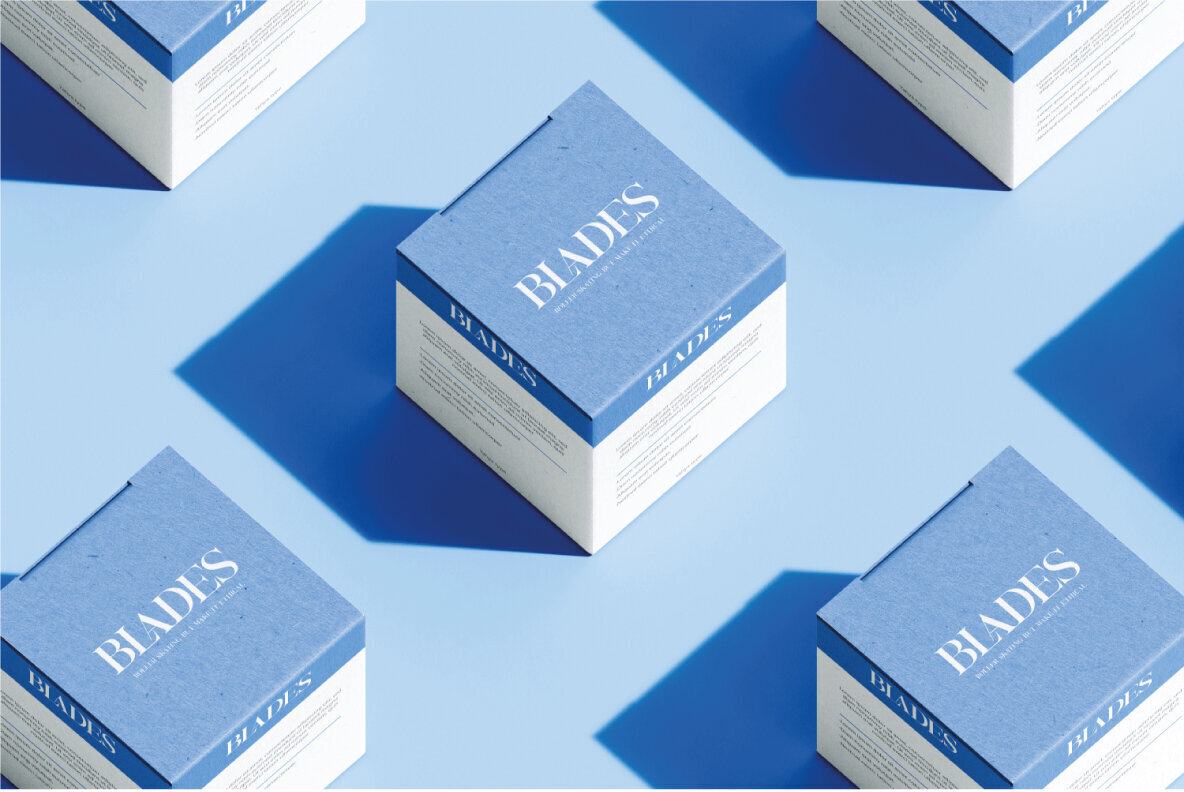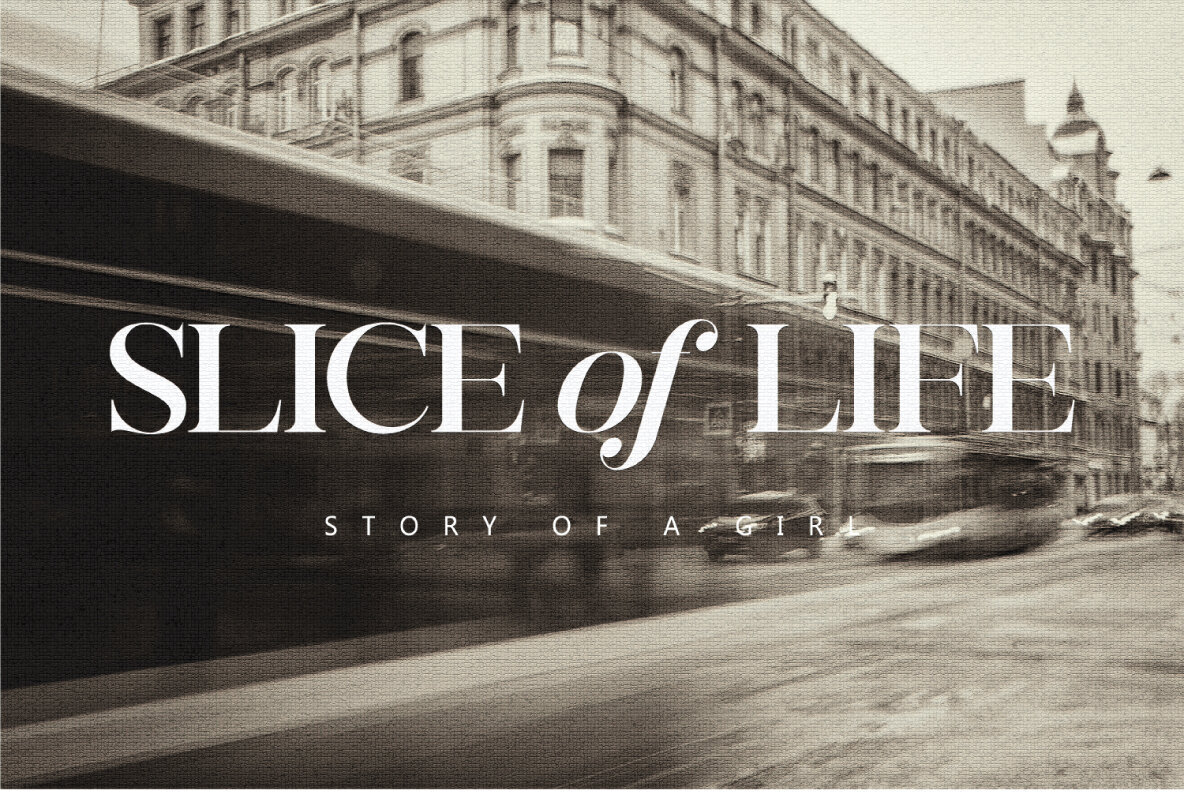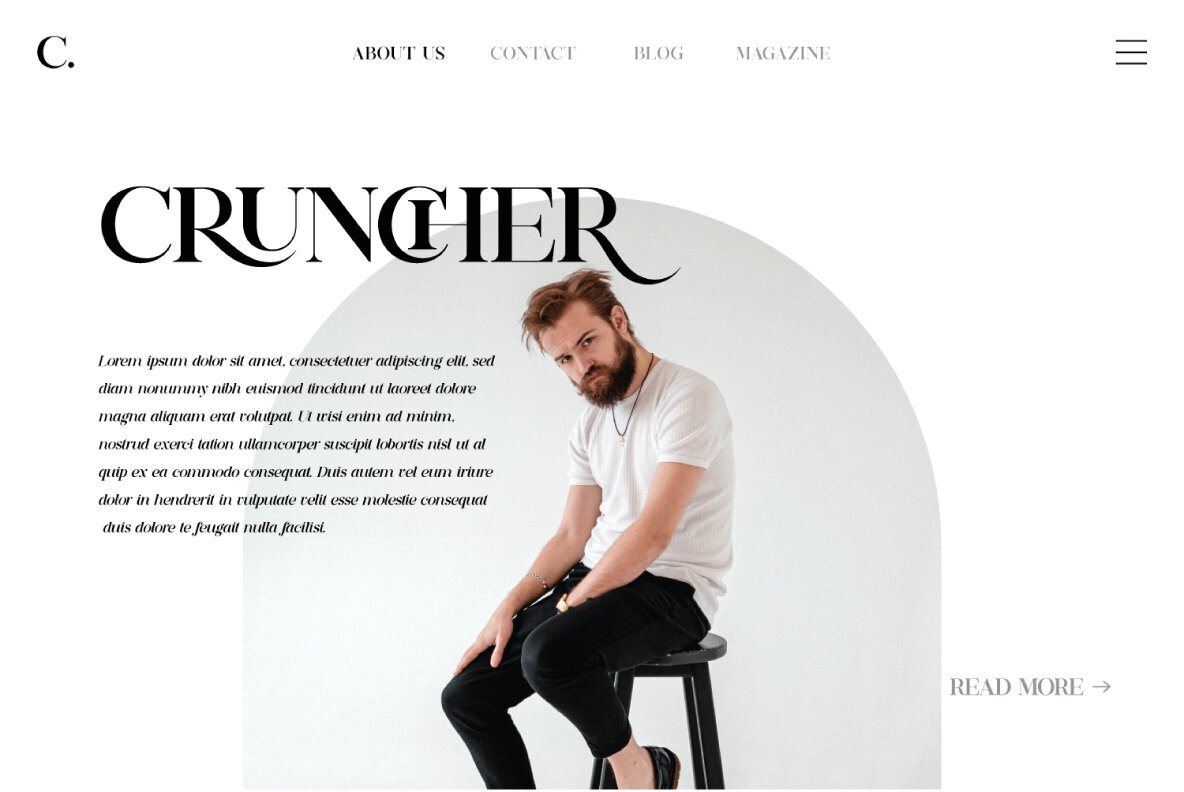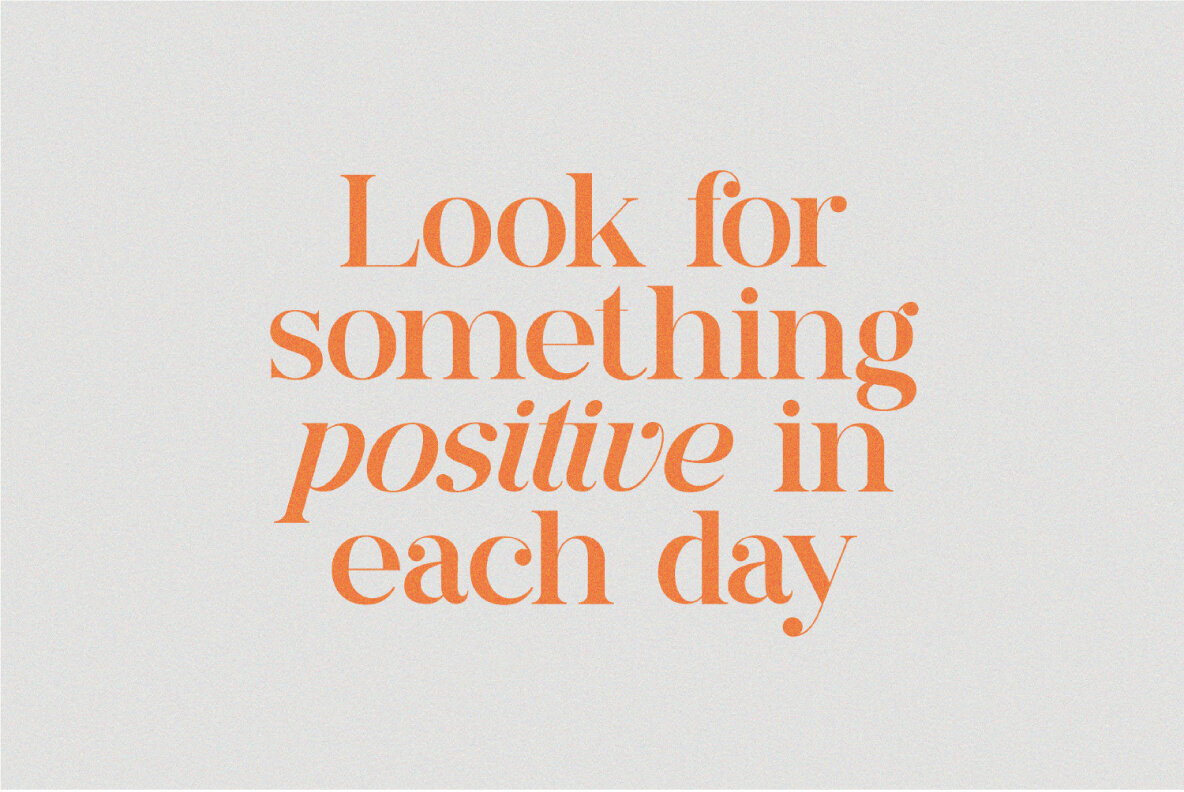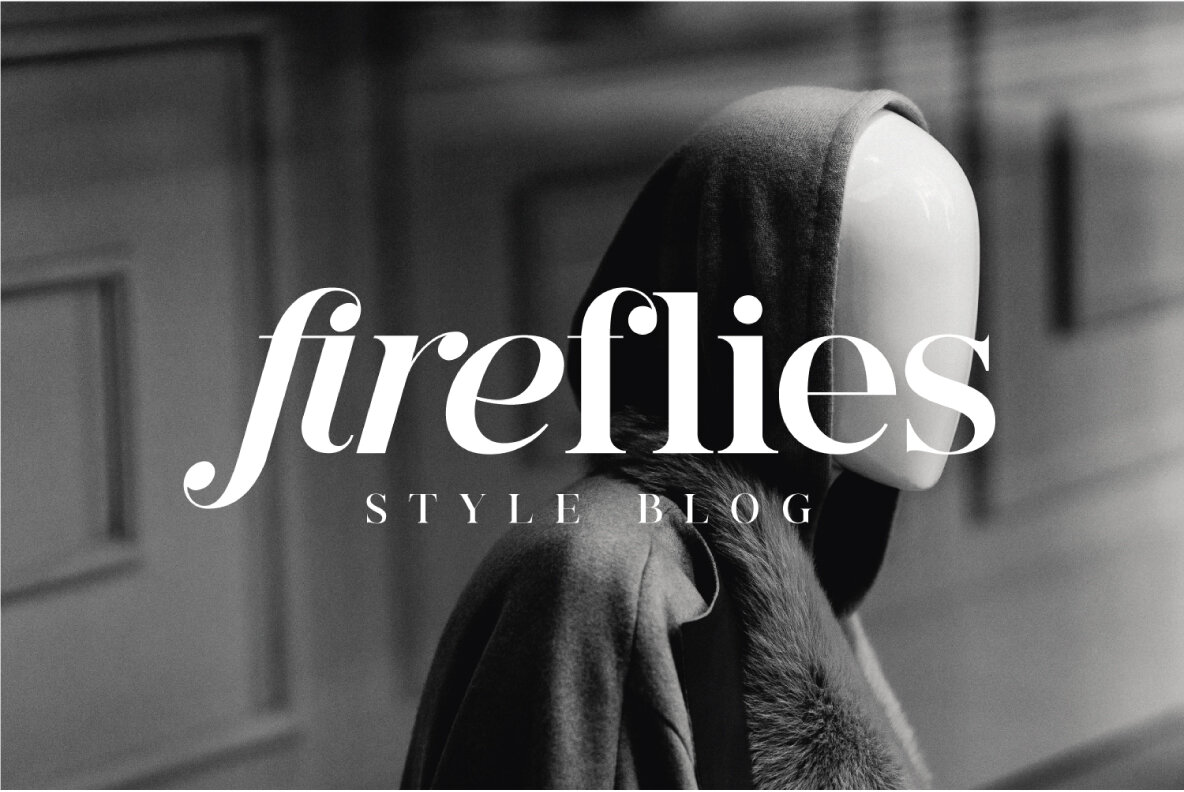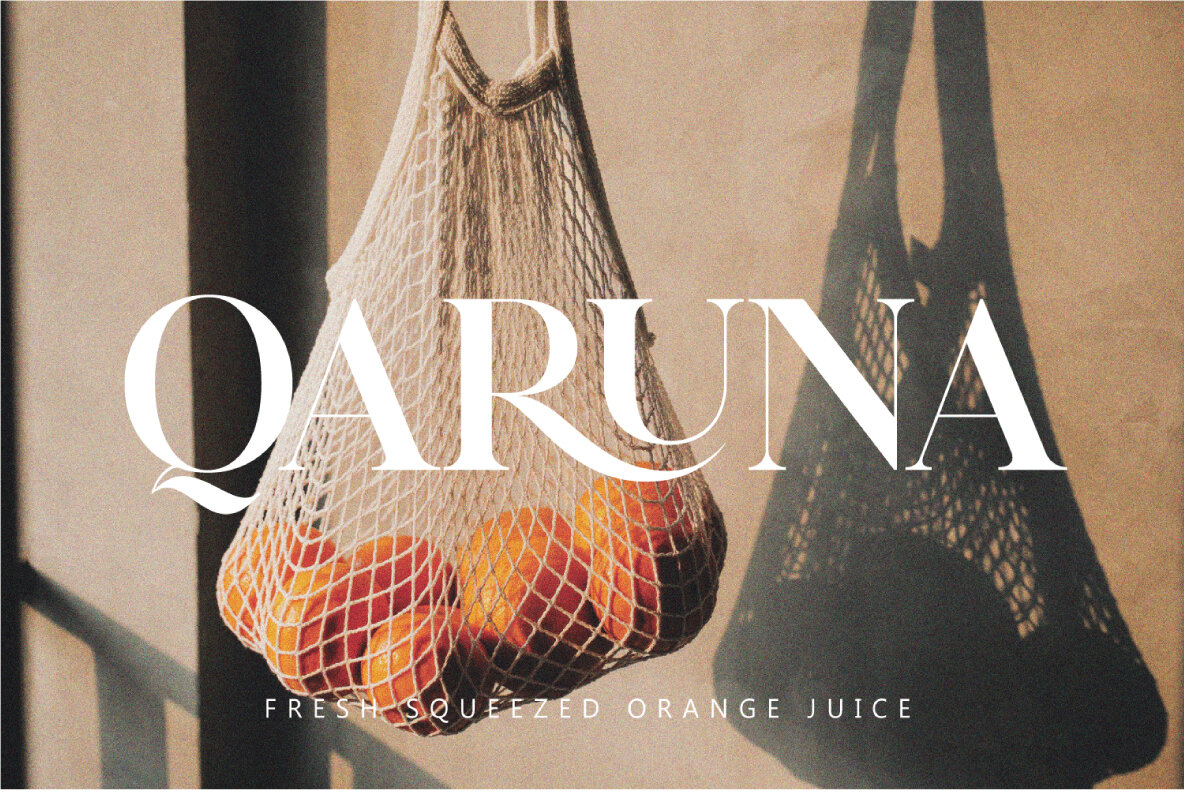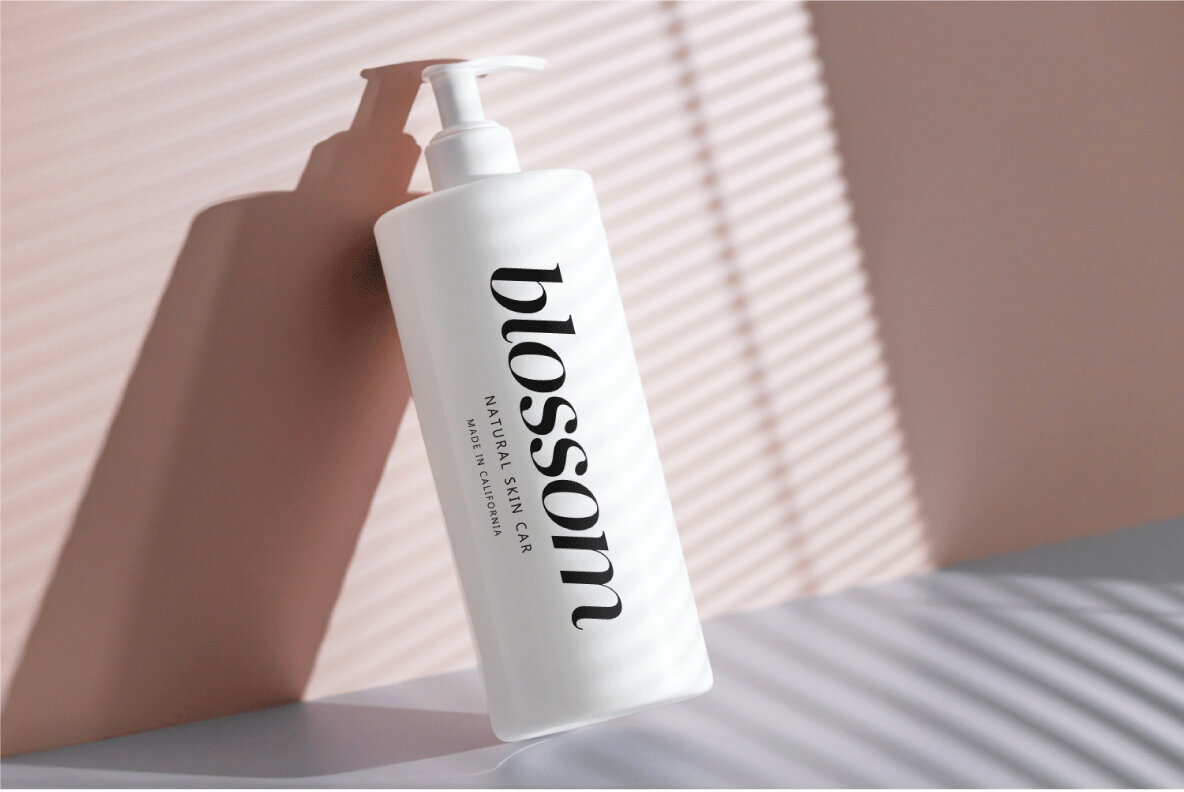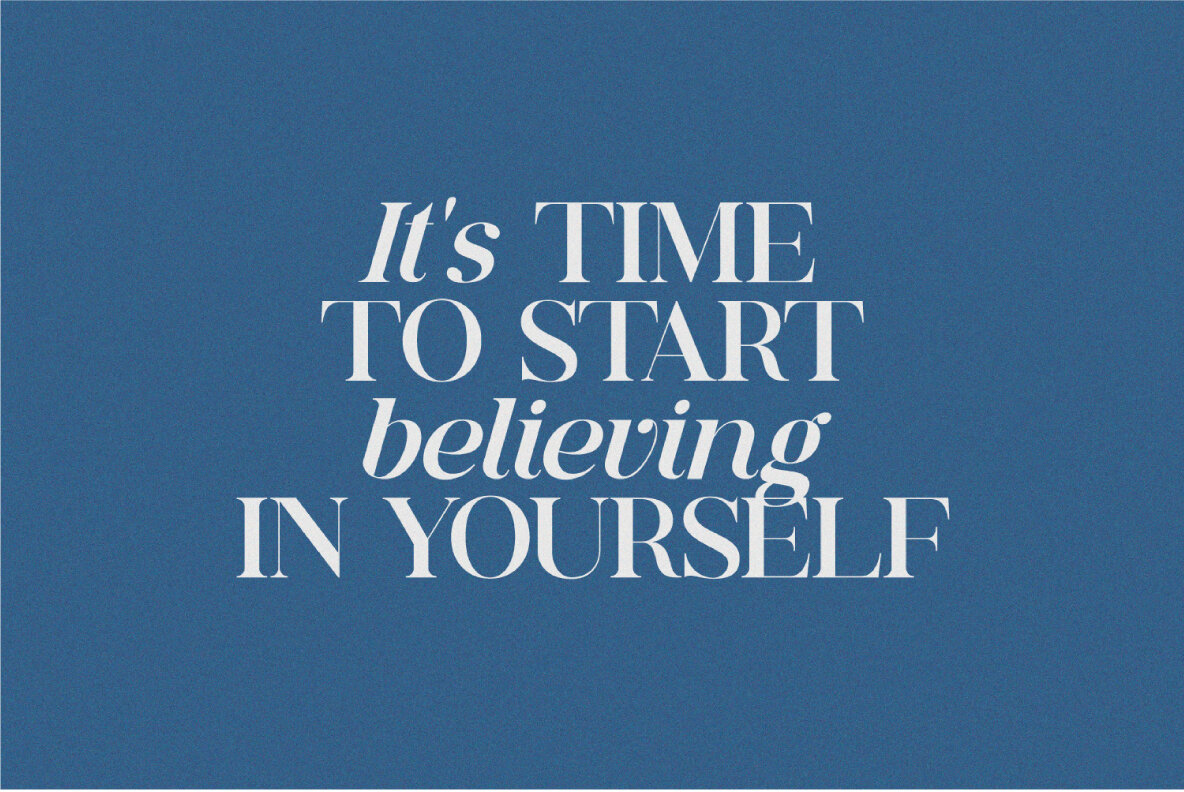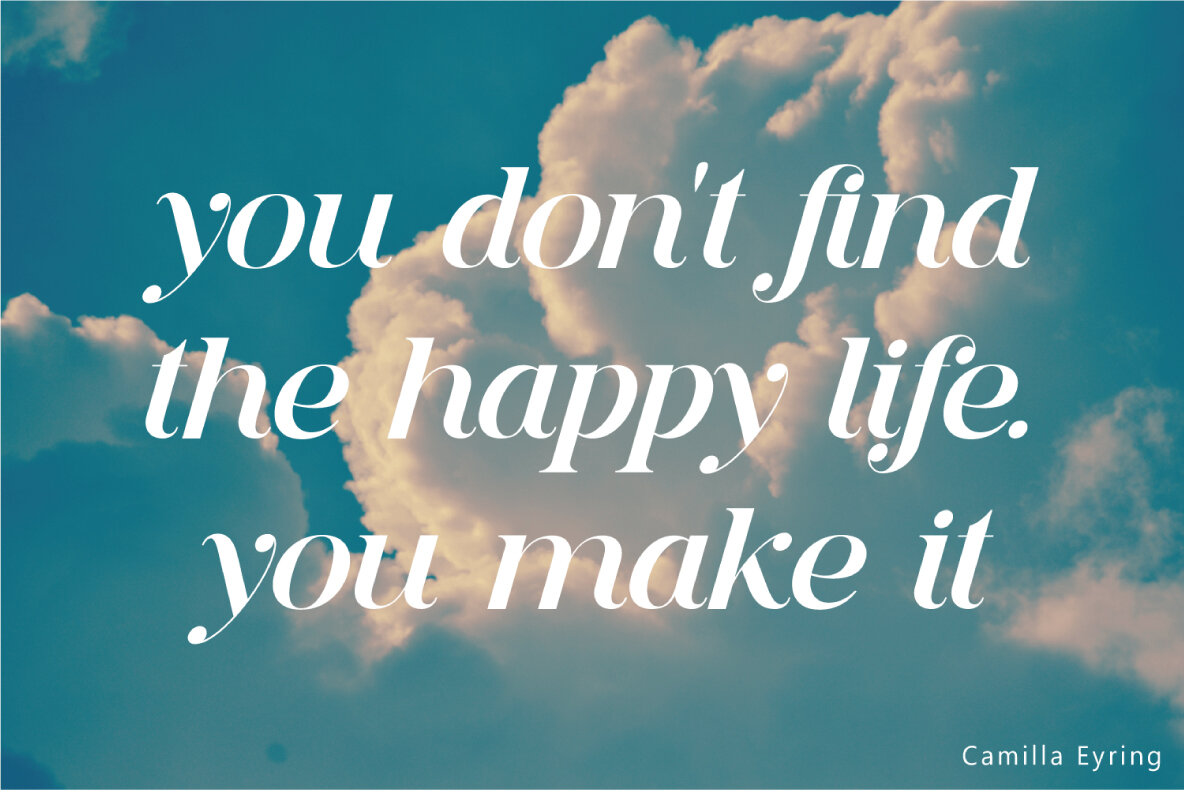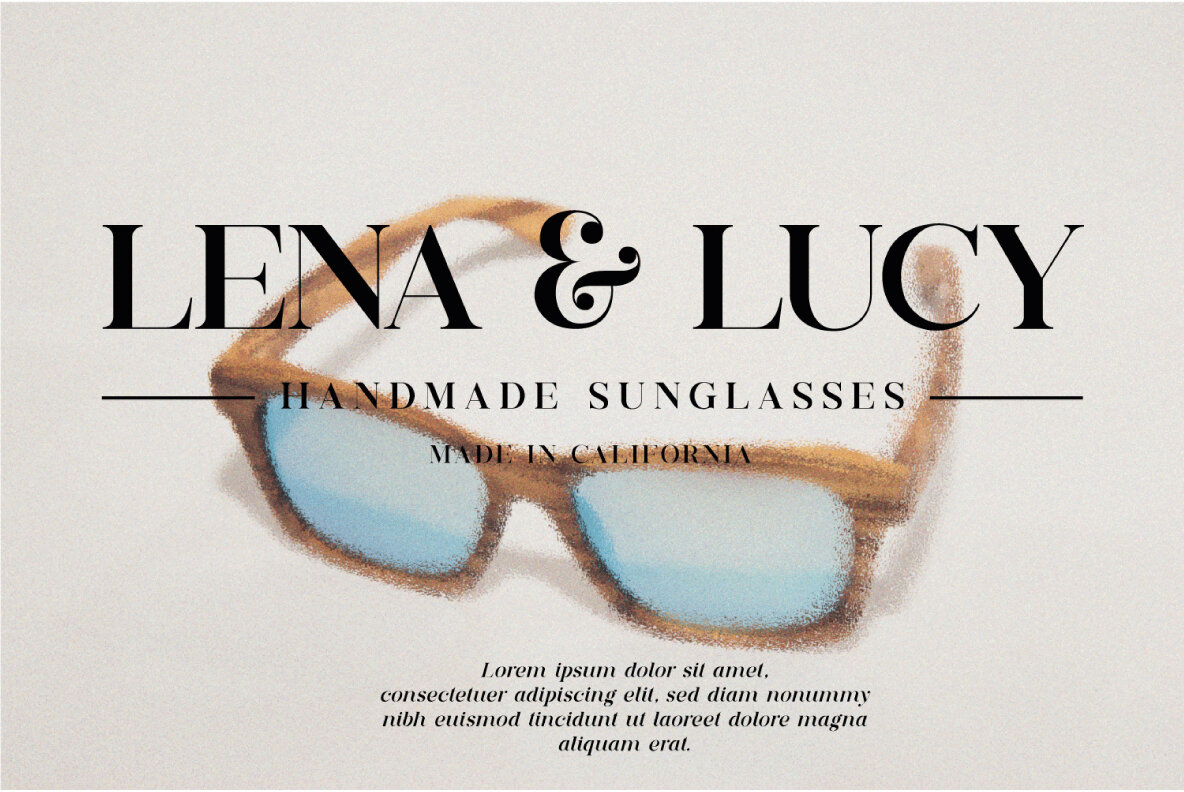
Deroma Serif Font
Deroma - is an editorial serif font (regular and italic) It beautifully combines a vintage look with a modern flair. Deroma will be perfect for many projects: logo, wedding designs, social media posts, advertisements, product packaging, product designs, label, photography, watermark, invitation, or whatever project you’re working on.
- Ligature & Huge Stylistic alternate